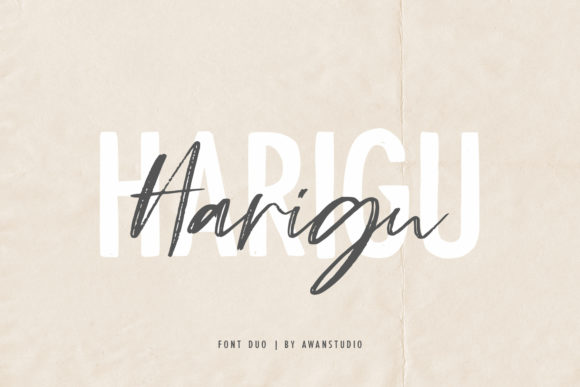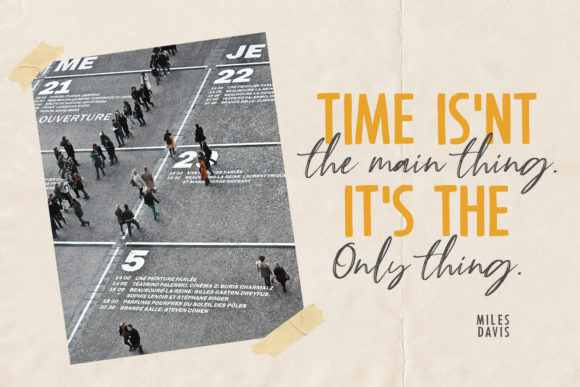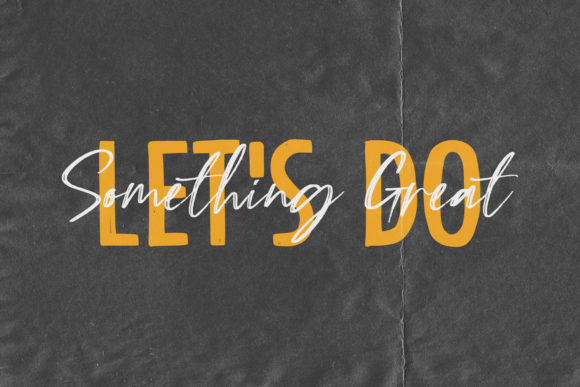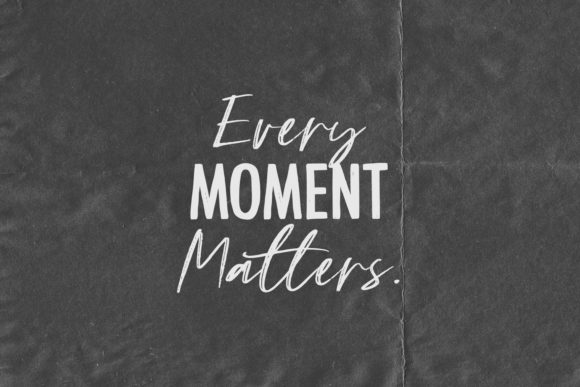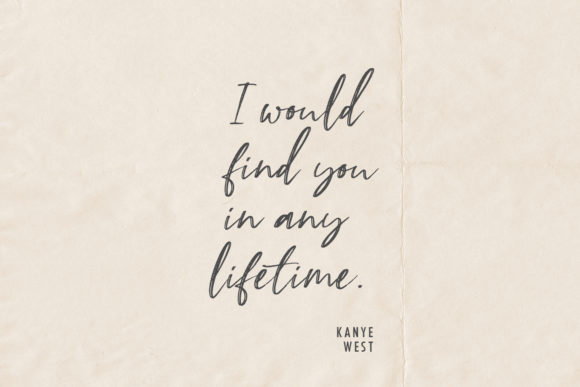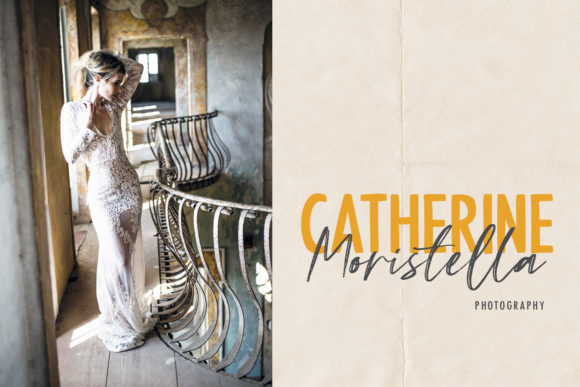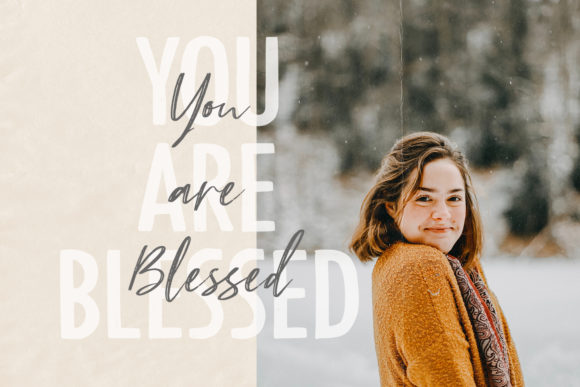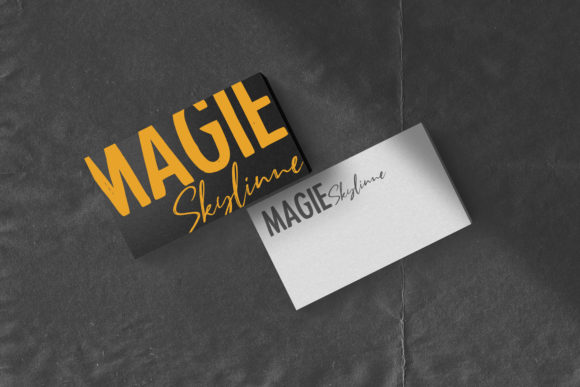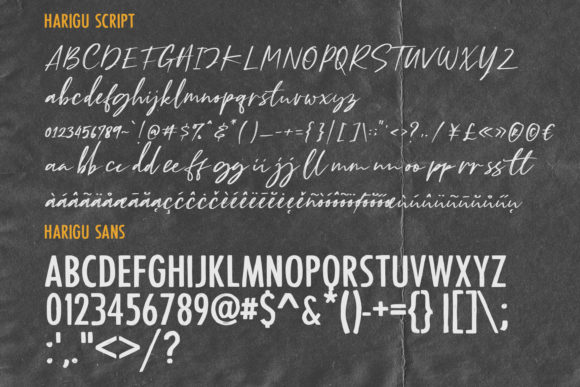
Harigu Duo Font
About Harigu Duo Font
Harigu is a stunning font duo, consisting of a smart sans serif and an authentic script font. Combine these two fonts to create one-of-a-kind design projects!